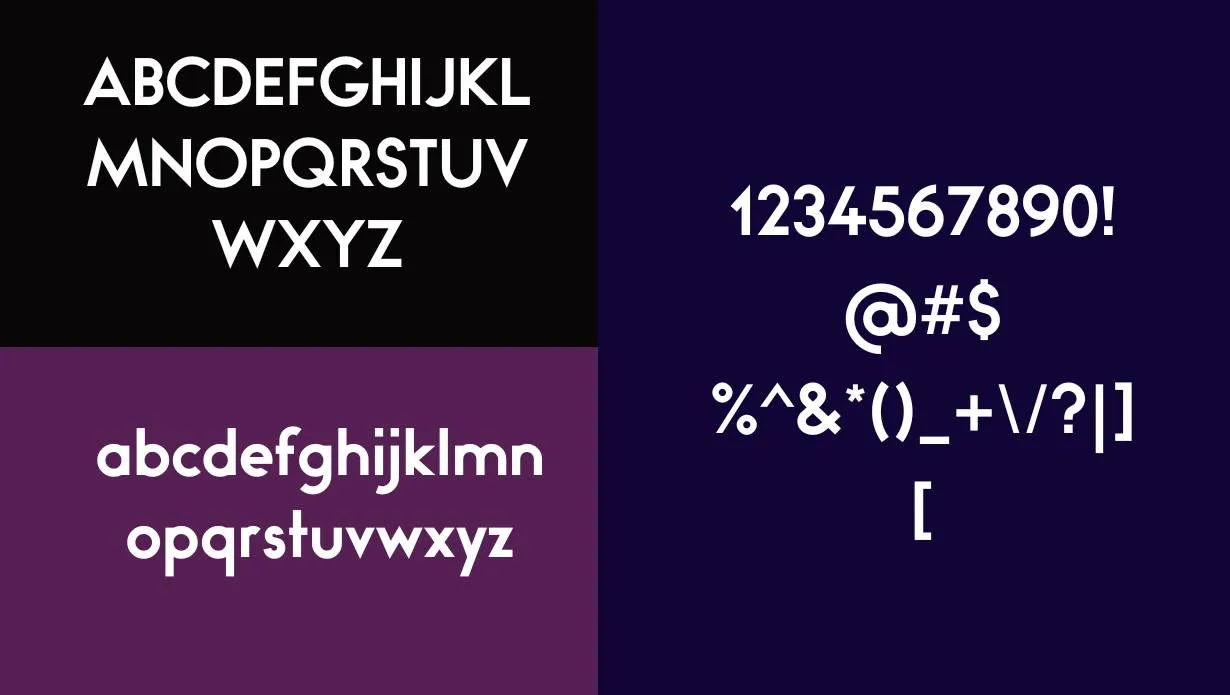
Say hello to Bambino Font! It’s the font equivalent of a breath of fresh air – simple and fresh. If you’re working on something modern, like a website or stylish packaging.
Bambino Font brings a touch of class without being too fancy, creating a clean and approachable vibe. Elevate the aesthetic appeal and precision of your design by pairing the typeface style with other fonts, such as the Hylia Serif Font, available on our website.
| Name | Bambino Font |